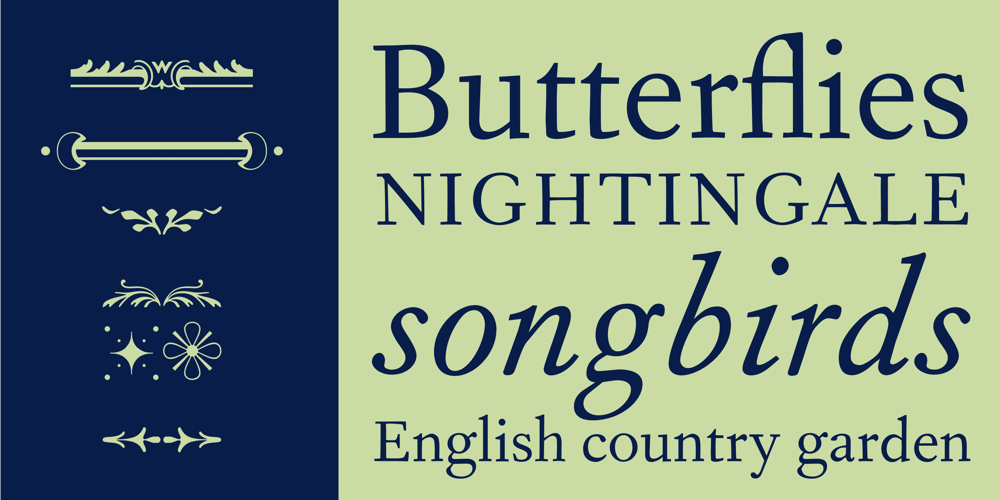
Fournier Font Family was designed by Pierre Simon Fournier, Monotype Design Studio and published by Monotype. Fournier contains 2 styles and family package options. Fournier was made by Monotype in 1924. The design is based on types cut by Pierre Simon Fournier circa 1742, some of the most influential designs of the eighteenth century. Fournier’s types were among the earliest of the transitional” style of typeface and were a stepping stone to the more severe “modern” style made popular by Bodoni later in the century. They had more vertical emphasis than the old style types, greater contrast between thick and thin strokes and little or no bracketing on the serifs. Fournier has a light, clean look on the page, provides good economy in text and retains an even colour.